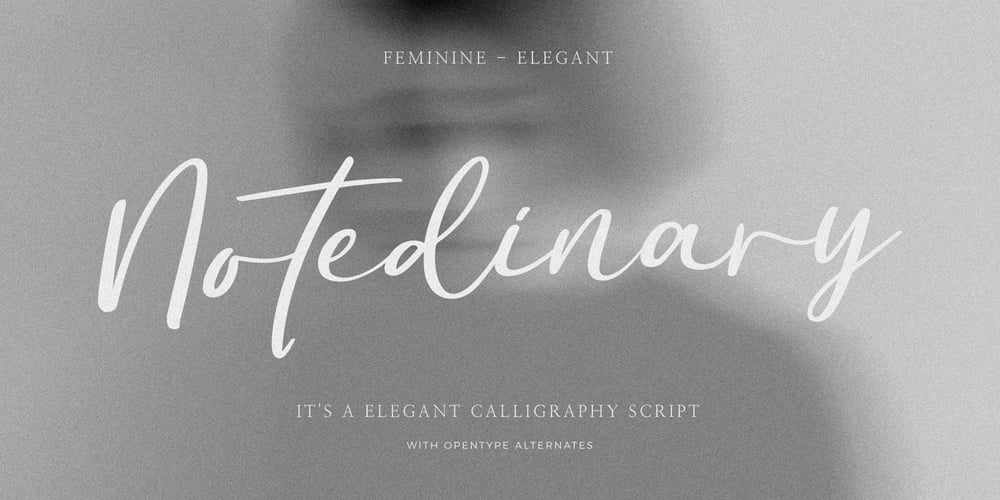
Notedinary Font Family was designed by Gha Arizal and published by Invasi Studio. Notedinary contains 1 styles and family package options. Notedinary comes with elegant script calligraphy with a personal touch. Take inspiration from diary notes. A delicate modern calligraphy script ideal for weddings, elegant branding, and adding a soft feminine touch to your projects.Notedinary comes with alternates and supports 60+ Latin-based languages. In the previews, I have paired Notedinary Script with the free Cormorant font.Features:- Total 204 Glyph- Uppercase & Lowercase- Numerals & Punctuation- Alternates- Multilanguage Supports 60+ Latin based languages